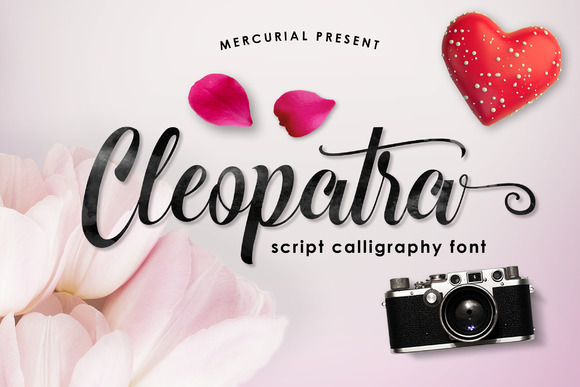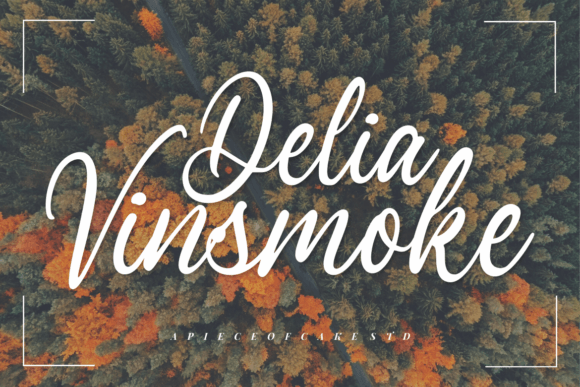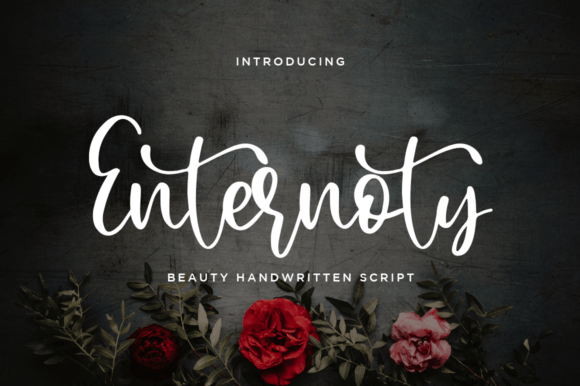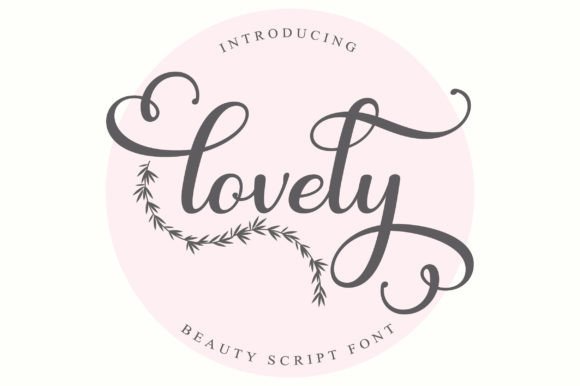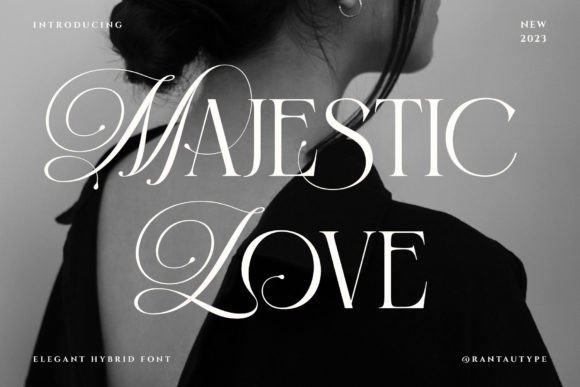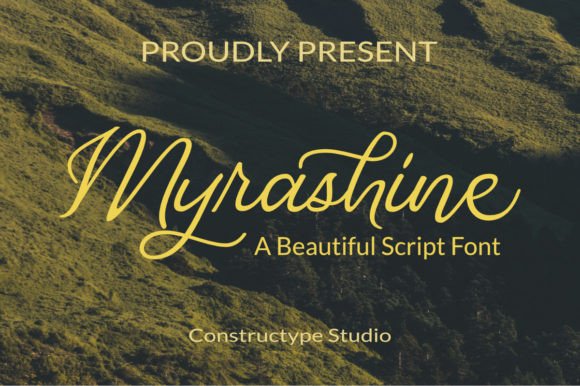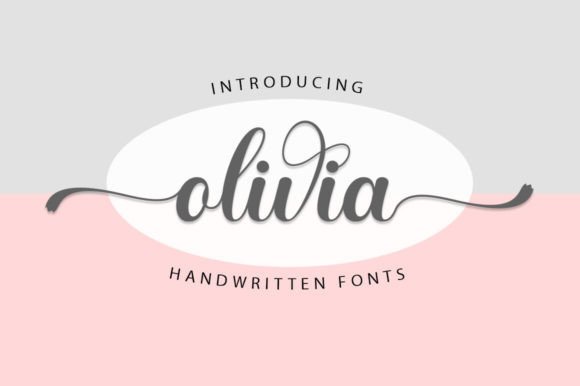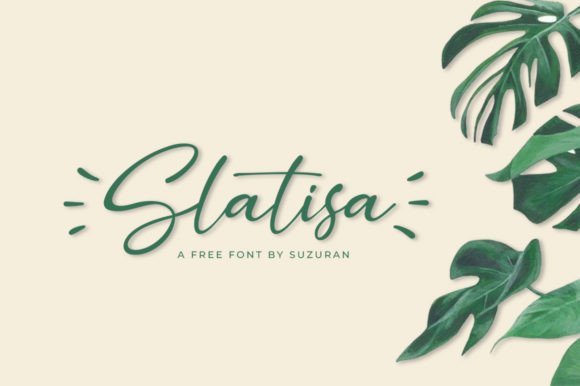
Explore the Best: 10 Cheap and Free Modern Calligraphy Fonts
Hey lovelies! Get ready to jump into the awesome world of modern calligraphy fonts with us! In this blog post, we’re gonna chat about how cool and versatile these fonts are.
And guess what? We’ve got 10 options just for you, and the best part is, they won’t cost you a bunch of money!
Whether you’re a designer, an artist, or just someone wanting to make your projects a bit fancier, these modern calligraphy fonts are like your creative BFFs.
They’re here to inspire you and make your creative journey way more awesome. So, let’s dig into these fonts and get ready to add a touch of elegance to whatever you’re working on! ✨
But first … what is modern calligraphy?
What is modern calligraphy?
Modern calligraphy is like a new version of the classic stuff. It takes the elegance and smooth vibes from classic calligraphy but gives it a fresh and modern twist.
These fonts are like magic – they grab the feel of handwritten letters with a touch of style and artsy vibes. And here’s the fun part: each font has its own special personality, giving you tons of choices for whatever design you’re cooking up!
Why use modern calligraphy fonts?
Now, why bother with these modern calligraphy fonts, you ask? Well, they’re like the secret sauce for making your designs pop!
Imagine this: your designs suddenly have this fancy touch, an air of elegance, a sprinkle of sophistication, and just a bit of playful charm.
That’s what these fonts bring to the table! Whether you’re sketching up wedding invites, whipping up a custom logo, or crafting some beautiful artwork, these modern calligraphy fonts add that personal, charming touch.
It’s like turning any old project into a visual masterpiece that catches everyone’s eye!
The modern calligraphy fonts are:
2/10
The Ragland Script Font
3/10
Delia Vinsmoke Font
8/10
Majestic Love Font
Conclusion
Alright, wrapping it up – modern calligraphy fonts are like keys to a whole creative wonderland. They’re fancy, super versatile, and give your projects a special vibe. When you toss these fonts into your work, it’s like sprinkling a bit of sophistication and charm that’ll catch everyone’s eye.